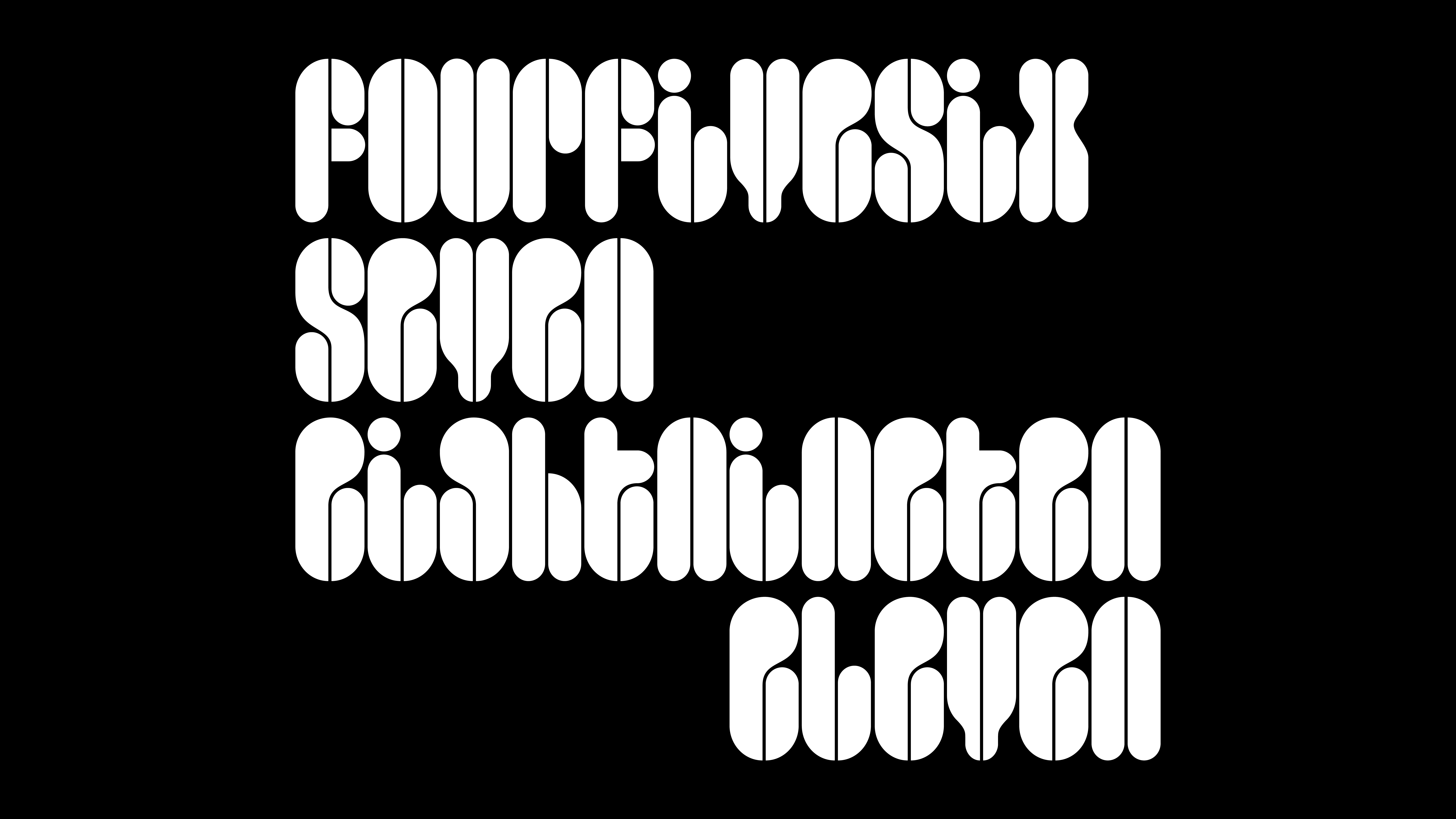
F37 Pinguis
Started two decades ago, Hector Pottie has reworked and released F37 Pingus all these years later.
This uni-case gem comes in two distinct styles wrapped in one font file. The first, a solid stencil style that champions the underlying modularity of the font. Condensed and heavy with a rounded construction, this style is perfect for compact titling. The second style is airy and open. Its light presence on the page is complimented by the decorative corners throughout the font. Each style is accessible through one of the cases on the keyboard, giving immediate access to two distinct tones, or mixed together for vibrant text.
F37 Pinguis
Inspiration